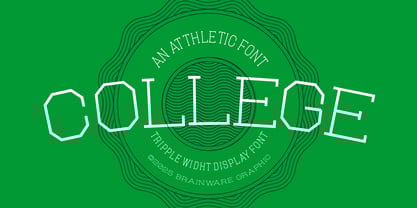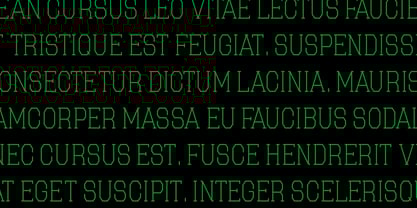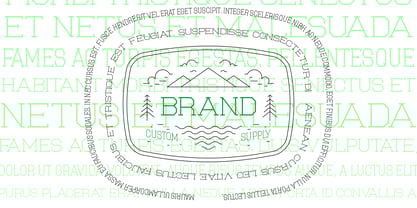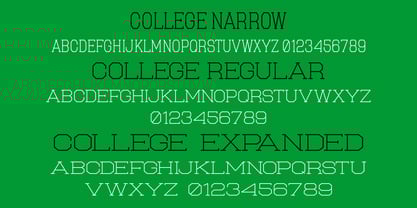
College
by Brainware Graphic
The College Font Family was designed by Muhammad Jauhar Azmi and published by Brainware Graphic. College contains 3 styles and family package options. More about this family
College is a athletic vintage display block font family, consist of regular, narrow and expanded widht in single weight, thin stroke and polygonal shape with clear face and good readability . suitable for identity design, posters, print design, sporty logo and typography layout, traditional vintage campaign, signage, and other. this font has a basic latin character
Designers: Muhammad Jauhar Azmi
Foundry: Brainware Graphic